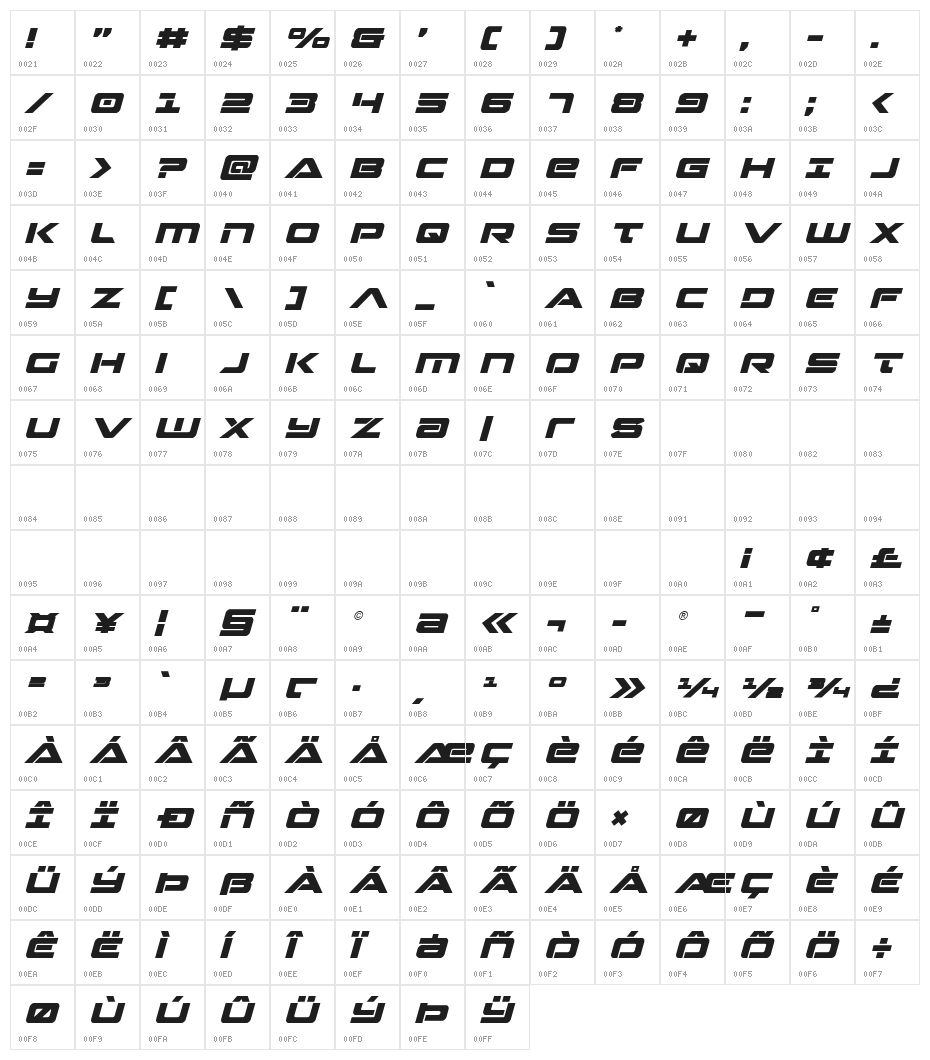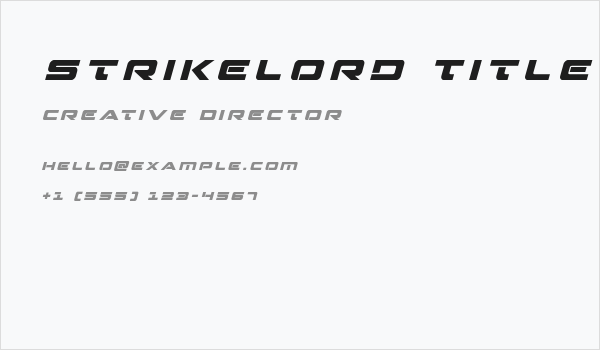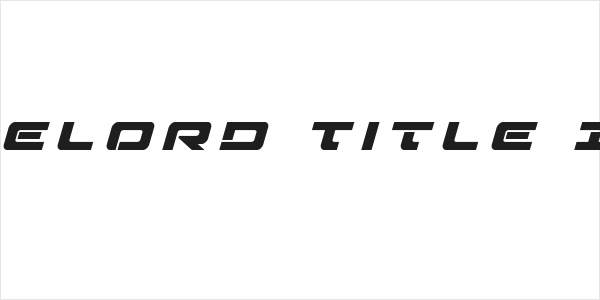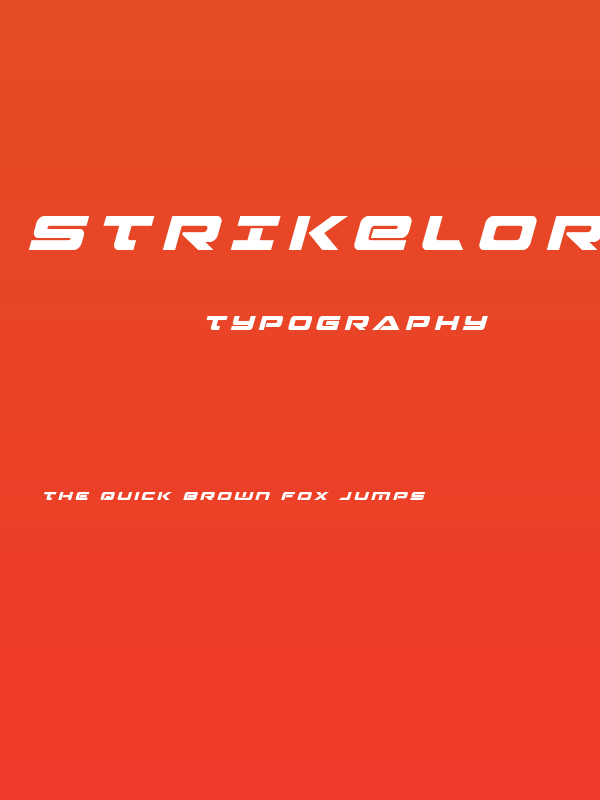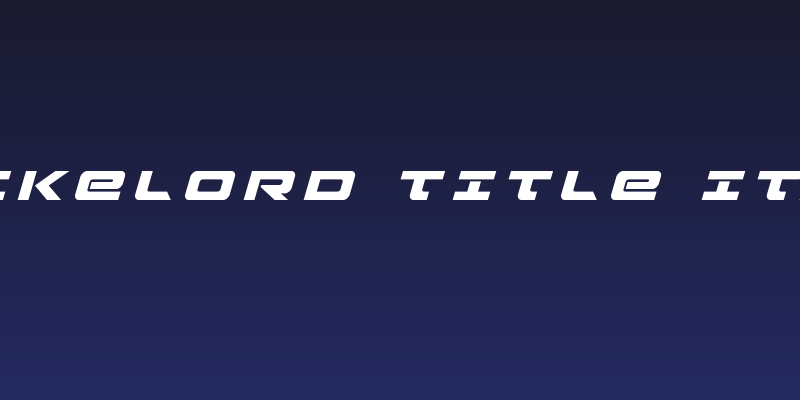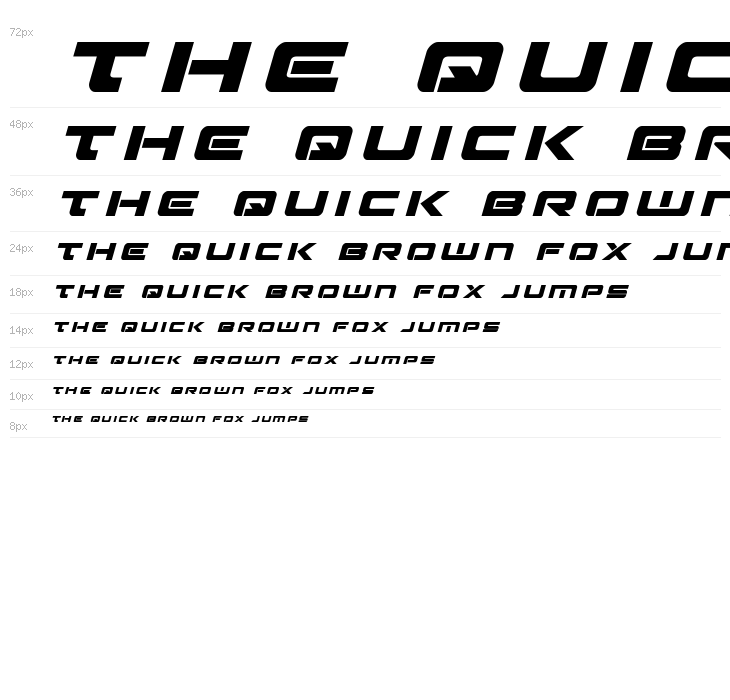
Strikelord Title Italic Font
Strikelord Title Italic Description
This font features a bold, italicized style with a futuristic and dynamic appearance. The characters are slightly slanted, giving a sense of motion and speed. The design includes sharp angles and clean lines, creating a modern and edgy look. The uppercase and lowercase letters maintain a consistent style, with a uniform stroke width that adds to the boldness of the font. The numerals and special characters are designed to match the overall aesthetic, ensuring a cohesive look across all text elements.
| Use Case | Logos, Headlines |
| Proposed Projects | Ideal for projects that require a modern and edgy look, such as technology branding, sports team logos, or sci-fi themed designs. |